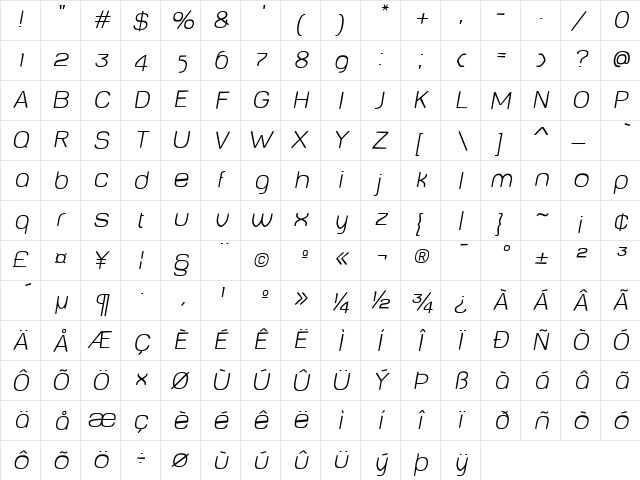
Baby Medium Italic
Design Context for Baby Typeface
Baby is a composed and adaptable typeface that performs quietly and consistently across a wide range of design contexts. The slanted form adds forward momentum and visual energy.
Pro Tip: Use Baby for emphasis, pull quotes, and subheadings where its slanted energy can add rhythm to the layout.